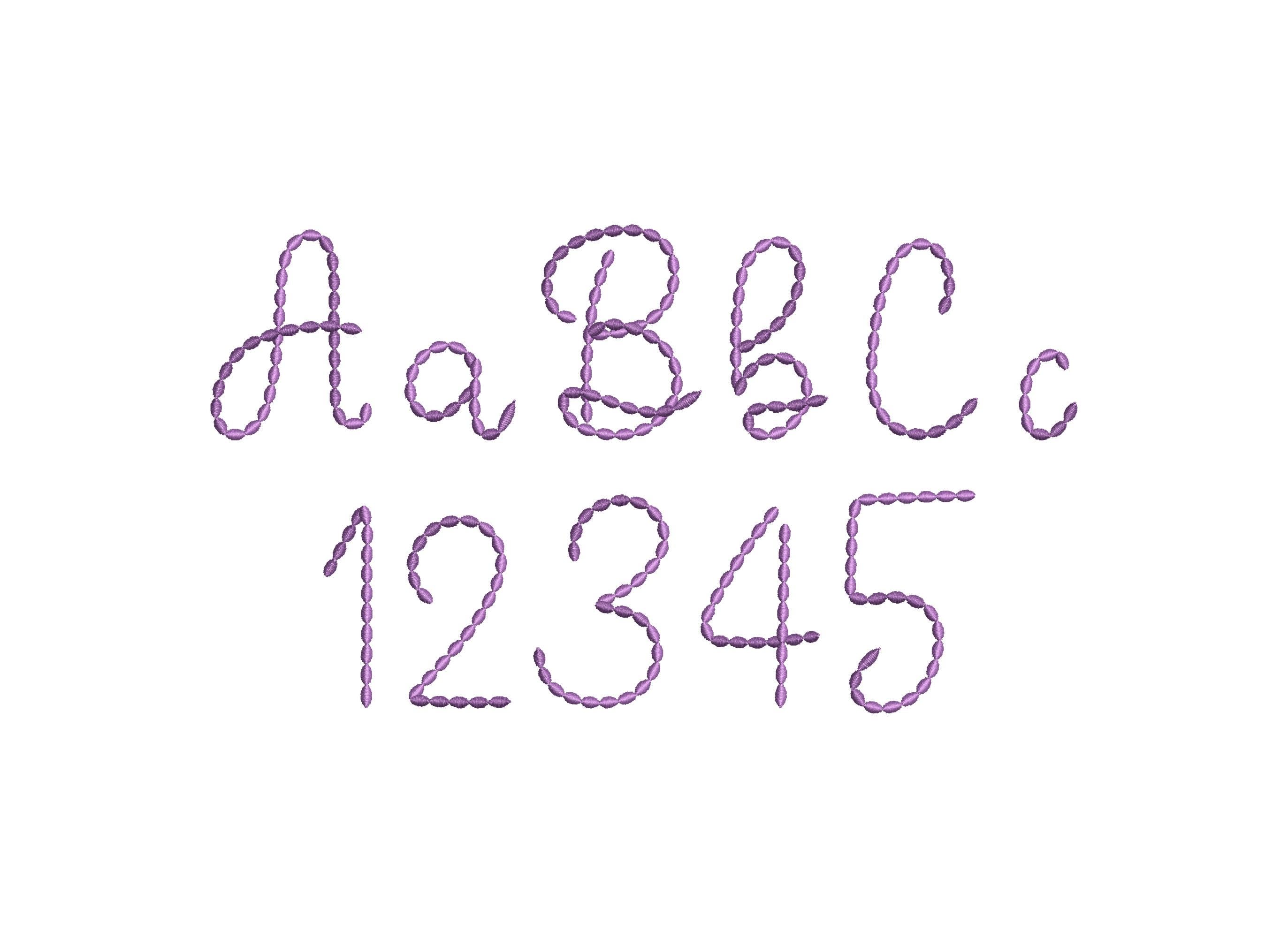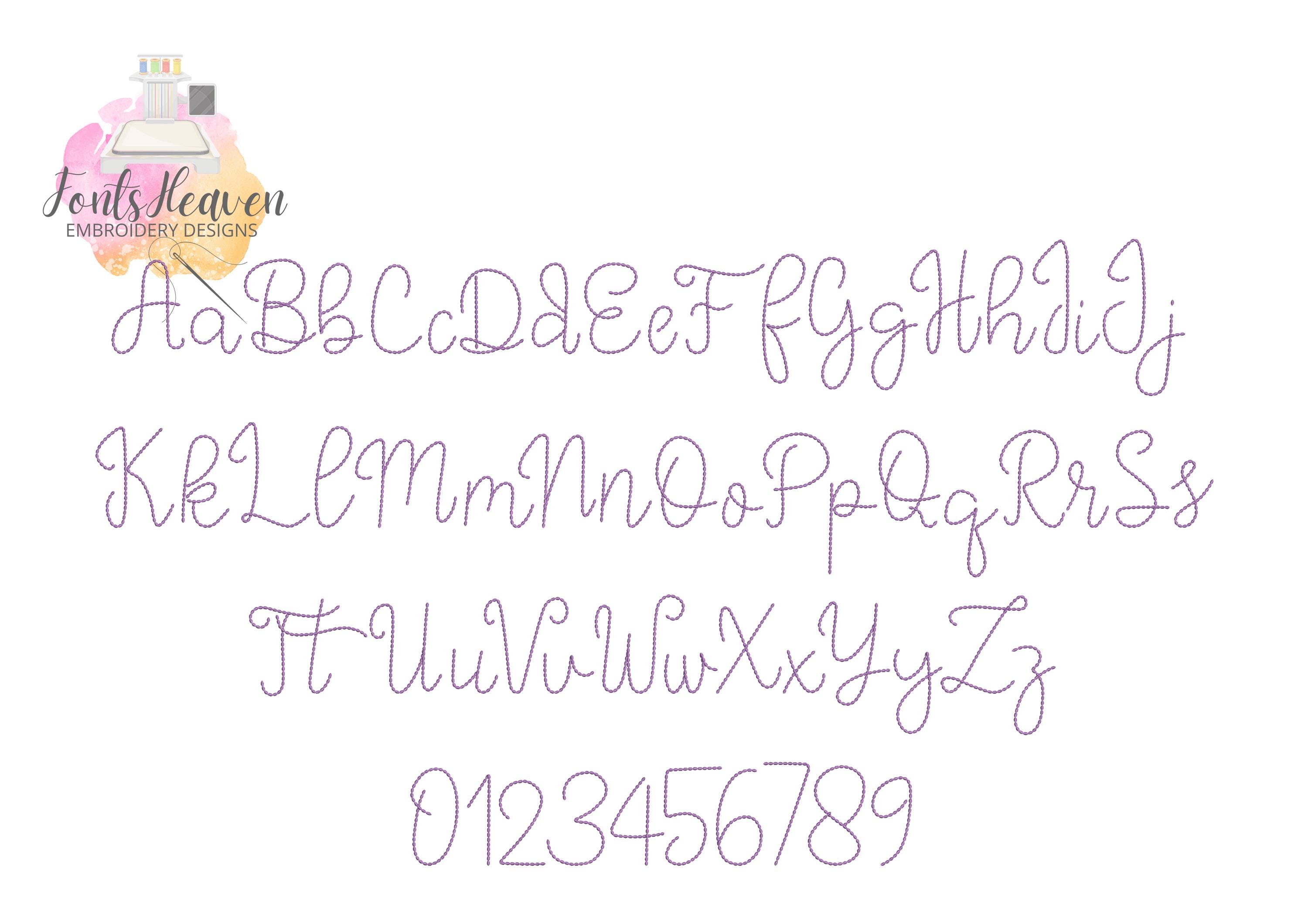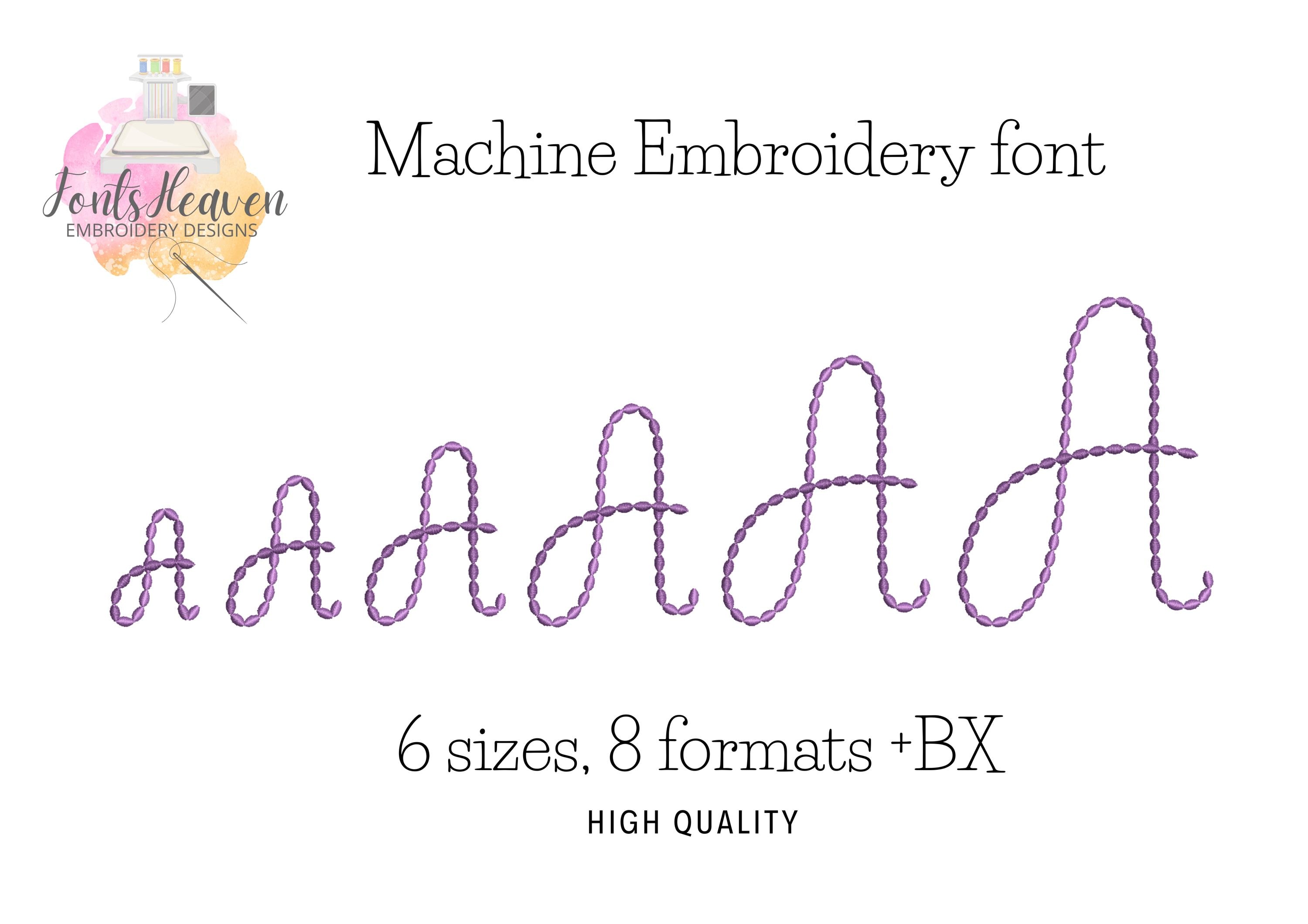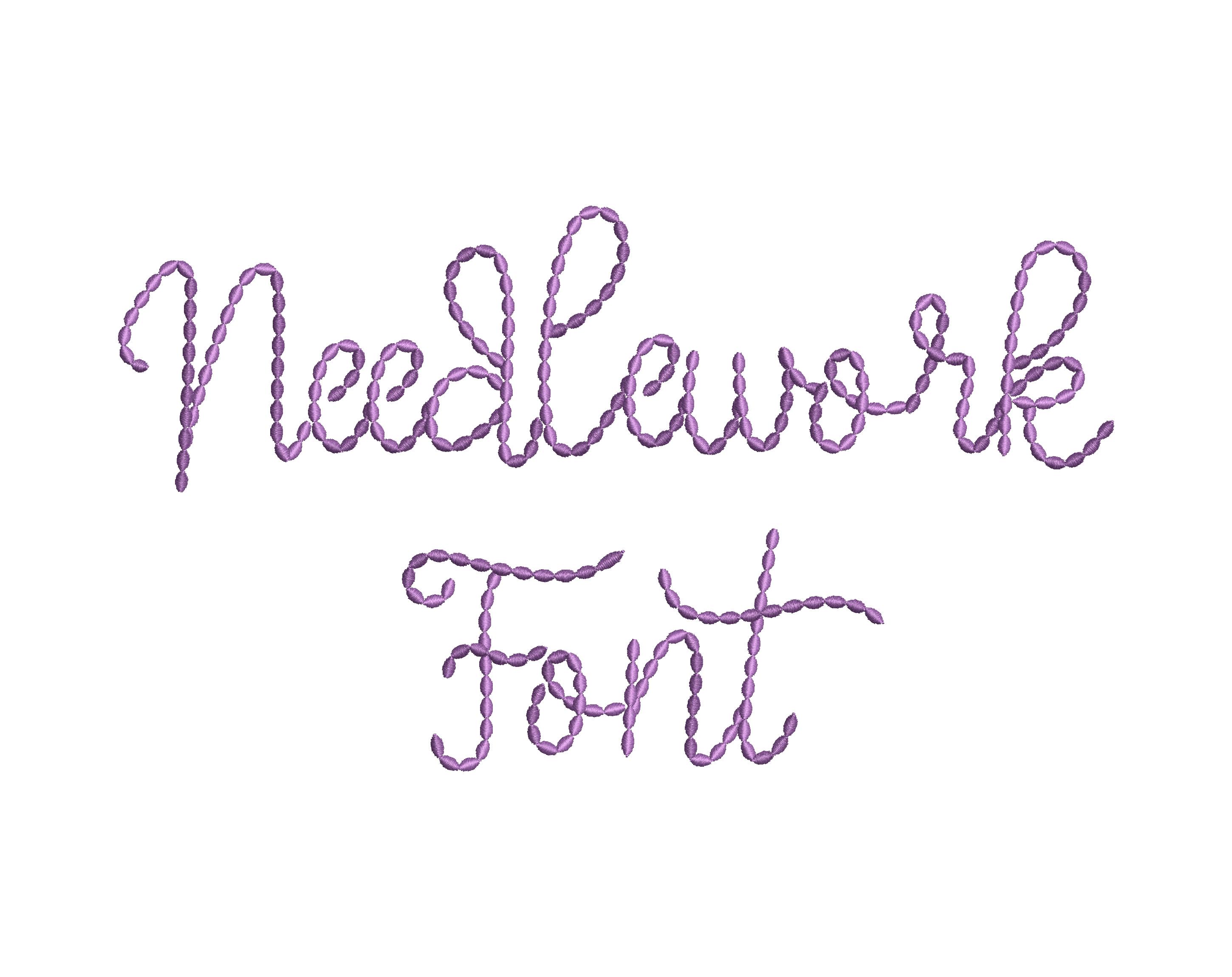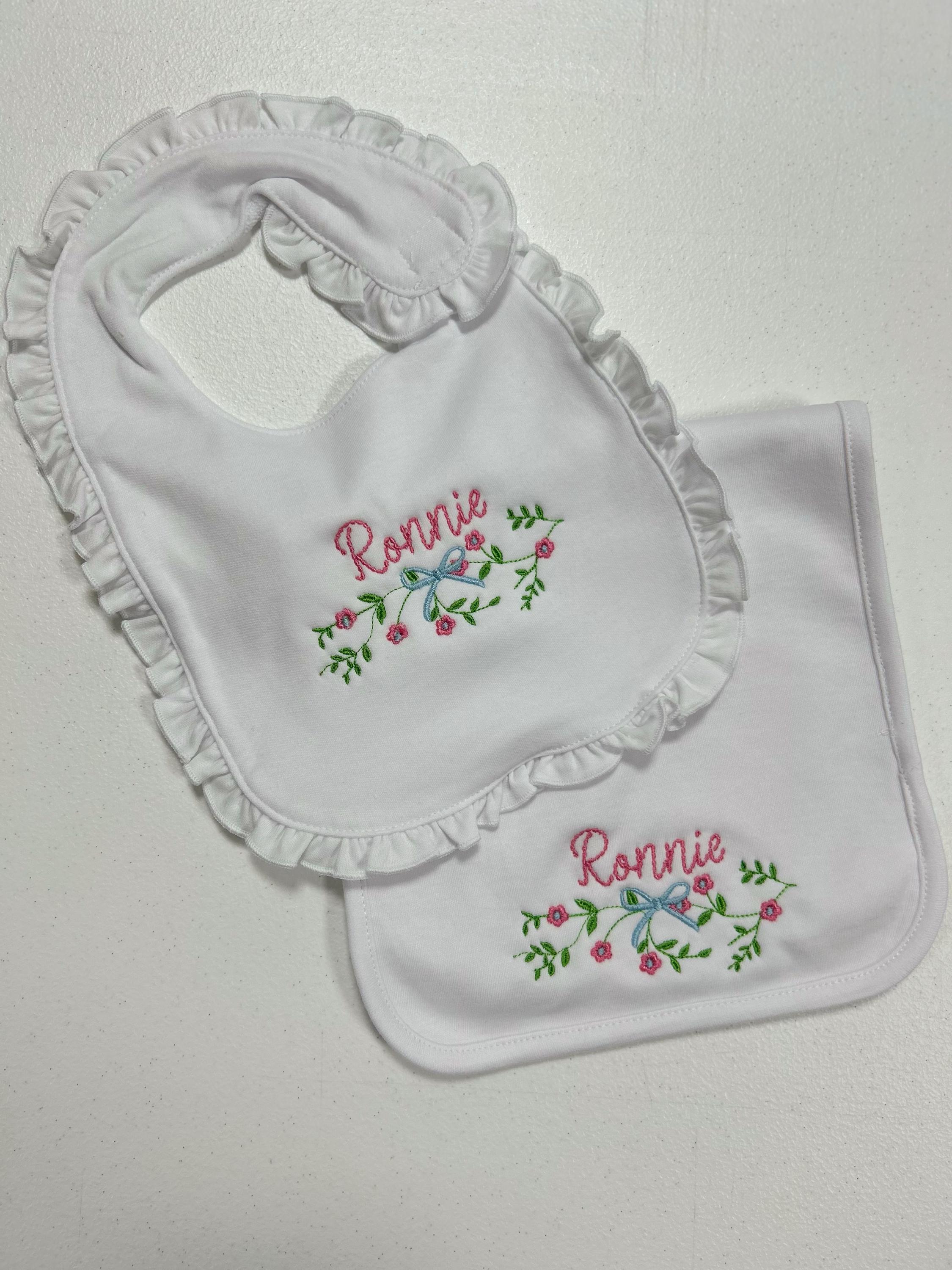
Needlework script FONT handwritten Font hand stitch effect kids baby alphabet machine embroidery designs monogram letters sizes 1 up to 3 inches
Uppercase and lowercase letters, and numbers.